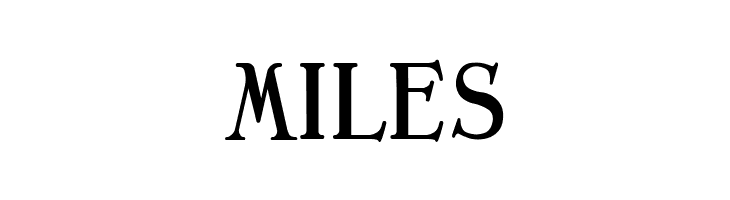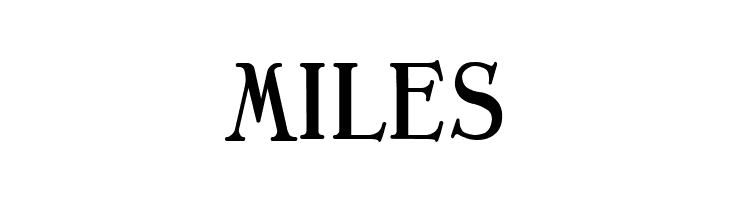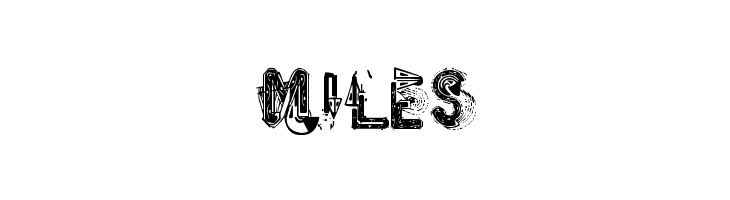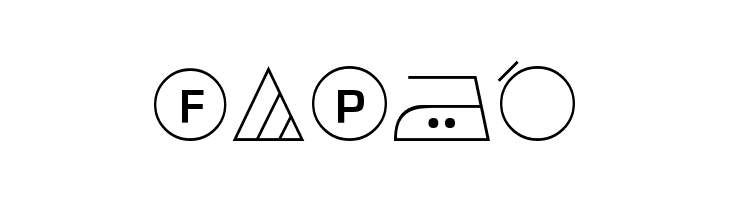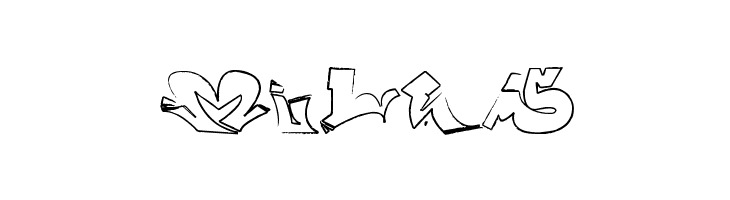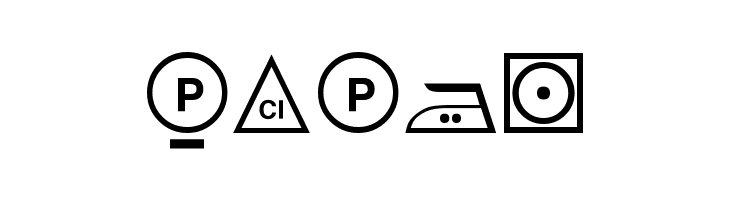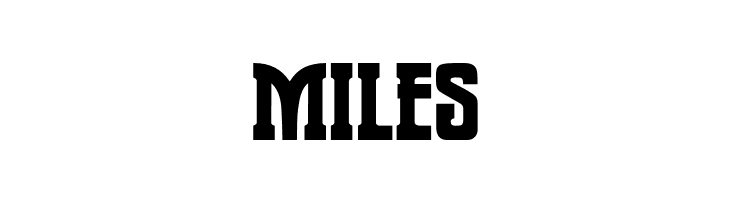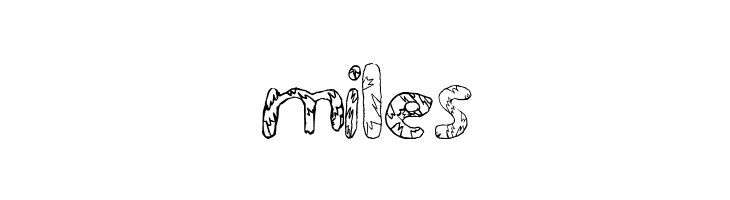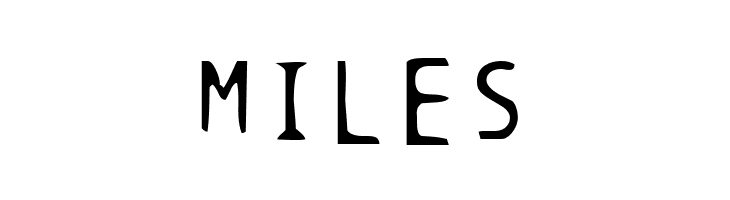
A bold, adventurous font with sharp, dynamic strokes and a rebellious spirit.
A bold, industrial font with characters enclosed in square frames connected by chains.
A bold, distressed font with a gritty, textured appearance.
A bold, distressed font with a grunge, war-torn aesthetic.
A bold, geometric font with a modern and impactful design.
A playful, hand-drawn style with irregular strokes and a whimsical vibe.
A bold, geometric font with strong, angular shapes and circular motifs.
A bold, geometric font with high contrast and unique character shapes.
A graceful, cursive script font with a handwritten style.
A bold, hand-drawn font with intricate patterns and a playful, artistic style.
A collection of whimsical, character-based designs resembling cartoonish warriors.
A decorative dingbat font of whimsical warrior and tribal characters.
A bold serif font with a modern twist, featuring sharp serifs and playful curves.
A vintage serif font with bold, elegant characters and unique flourishes.
A bold, rounded serif font with strong, assertive characters and high contrast.
A bold, vintage-inspired serif font with thick strokes and a compact design.
A serif font combining vintage charm with modern readability.
A bold pictogram font with laundry and wash-care symbols.
Functional, icon-based font for wash care and laundry symbols.
Geometric sans-serif font optimized for clarity and legibility.
A rugged, hand-drawn font with textured, brush-like strokes.
A distressed, grungy font with a bold, chaotic aesthetic.
A bold, distressed font with a vintage, grunge style.
A bold, distressed font with a grunge texture and high contrast.
A distressed, grungy font with erratic, splattered strokes and a chaotic aesthetic.
Icon-based font featuring diverse watch and clock illustrations.
A bold, modern sans-serif font with clean lines and uniform strokes.
An ultra-thin, elegant font with a minimalist and modern aesthetic.
A modern sans-serif font with geometric structure and balanced appearance.
A sleek, minimalist font with thin, uniform strokes and a modern aesthetic.
A bold, decorative font with rounded, water droplet-like shapes.